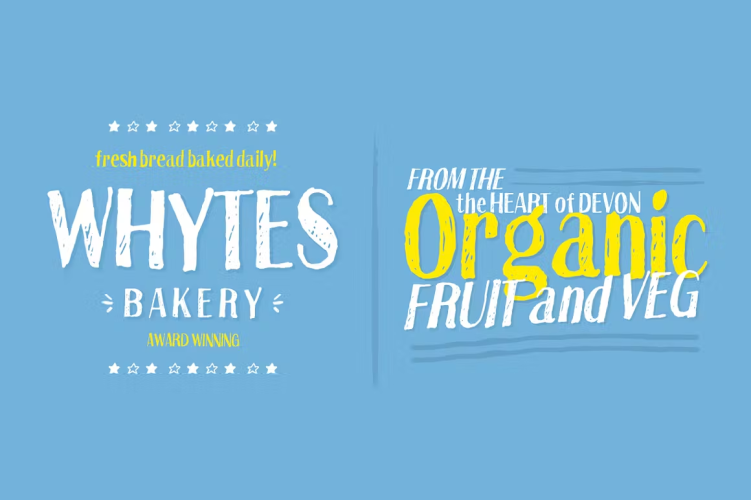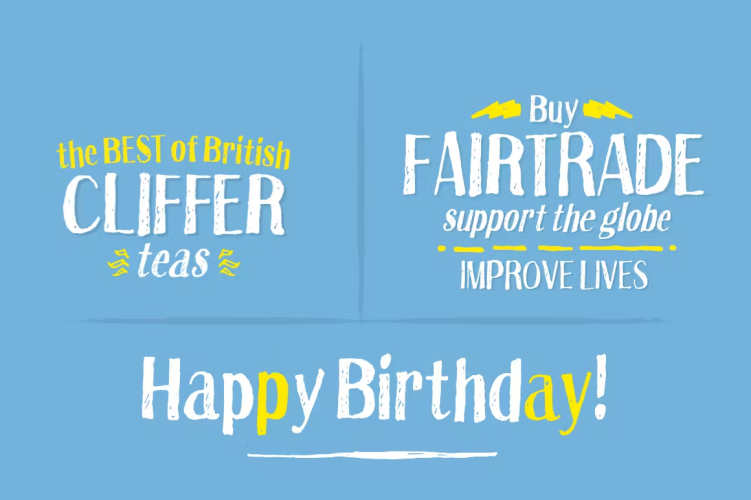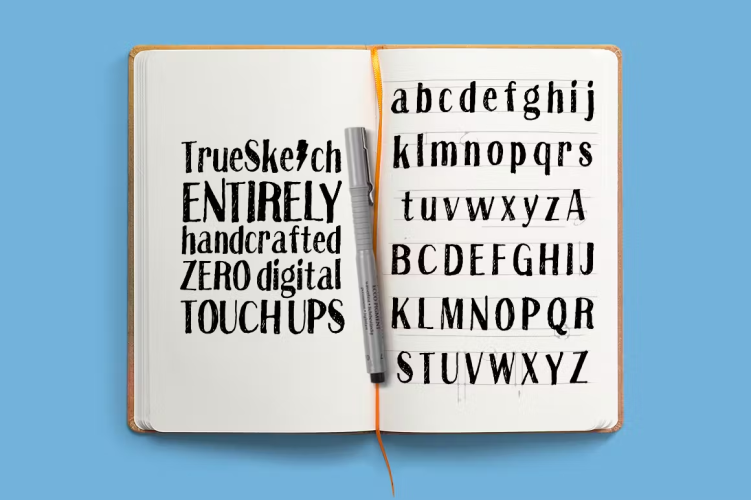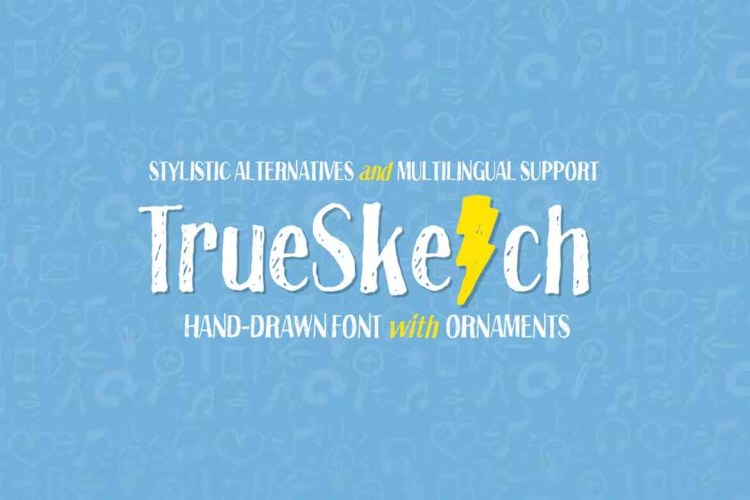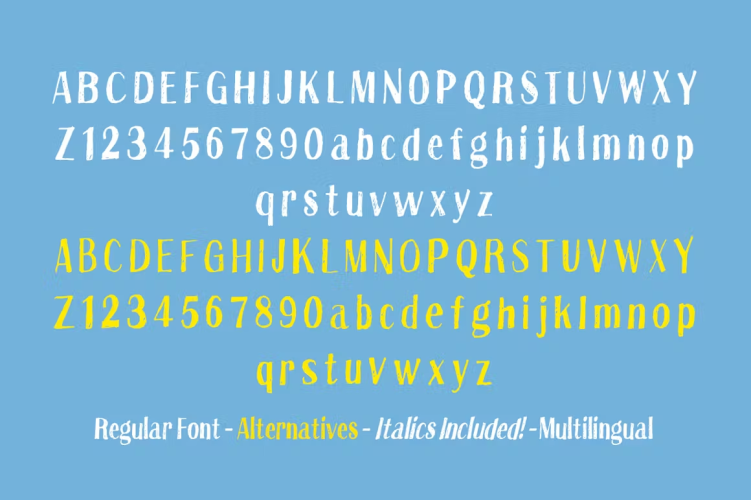
Truesketch Font
TrueSketch is a fun, practical and versatile font that can be used in various digital projects. It is a regular font (+ Italic!) with stylistic alternatives for every letter to help you emphasize the authentic handwritten style. Every glyph was hand drawn, scanned, and converted to vector without any digital touch-ups!
Also included: True Sketch Ornaments, 85 hand drawn design elements that perfectly complement this complete font family
Truesketch Font is a Script And Handwritten font that brings a professional and versatile look to your projects. TrueSketch is a fun, practical and versatile font that can be used in various digital projects.